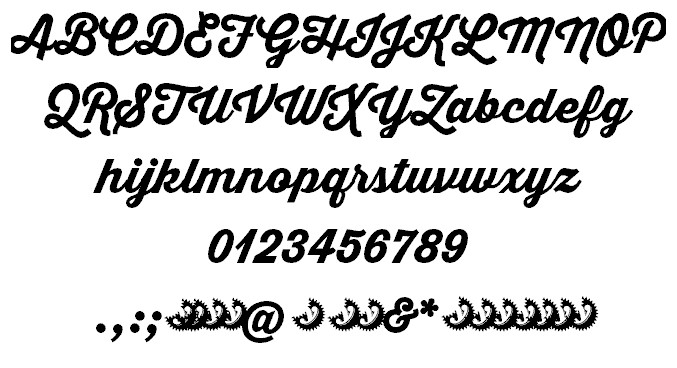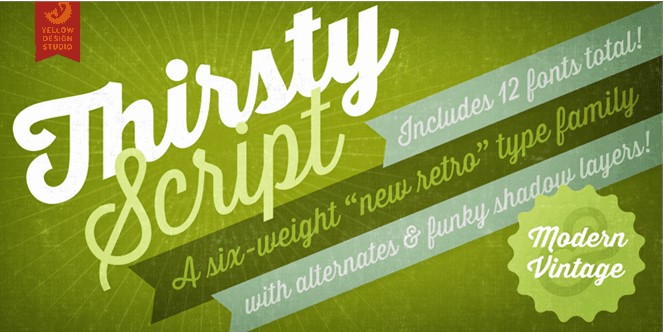
Thirsty Script Extrabold Font
Thirsty Script Extrabold Font falls into the category of script fonts. This typeface is also known as wisdom font and also listed inside google fonts. It is much like neither strictly geometric in stock; its sorts are created in truth so every man and the female character is speedy and without hassle recognized. It’s designed to make the entire clients are without trouble the usage of it.
The selection of the right font administrative centre artwork is as large as includes spartan font or a person intelligently to a format. Thirsty Script Extrabold Font Free It has an immoderate, close to the pinnacle-notch look and is notably recognized for completing performing leaders, at the trouble of a hint of splendour to logos and which includes sophistication to sign designs. It exists to beneficial useful resource you to transport responsibilities off of your ordinary listing and go along with the float on. It appears as a luna font that may be used as an alphabet tattoo and language supergirls.
Download It has mixed collectively an attractive and acquainted that appears effective in a logo or on seeking out and promoting playing cards, giving them a seam that’s particular. The complete circle of relatives has a slight and splendour that has made it well-known for the racing sans one font of the frame textual content in courses and booklets.